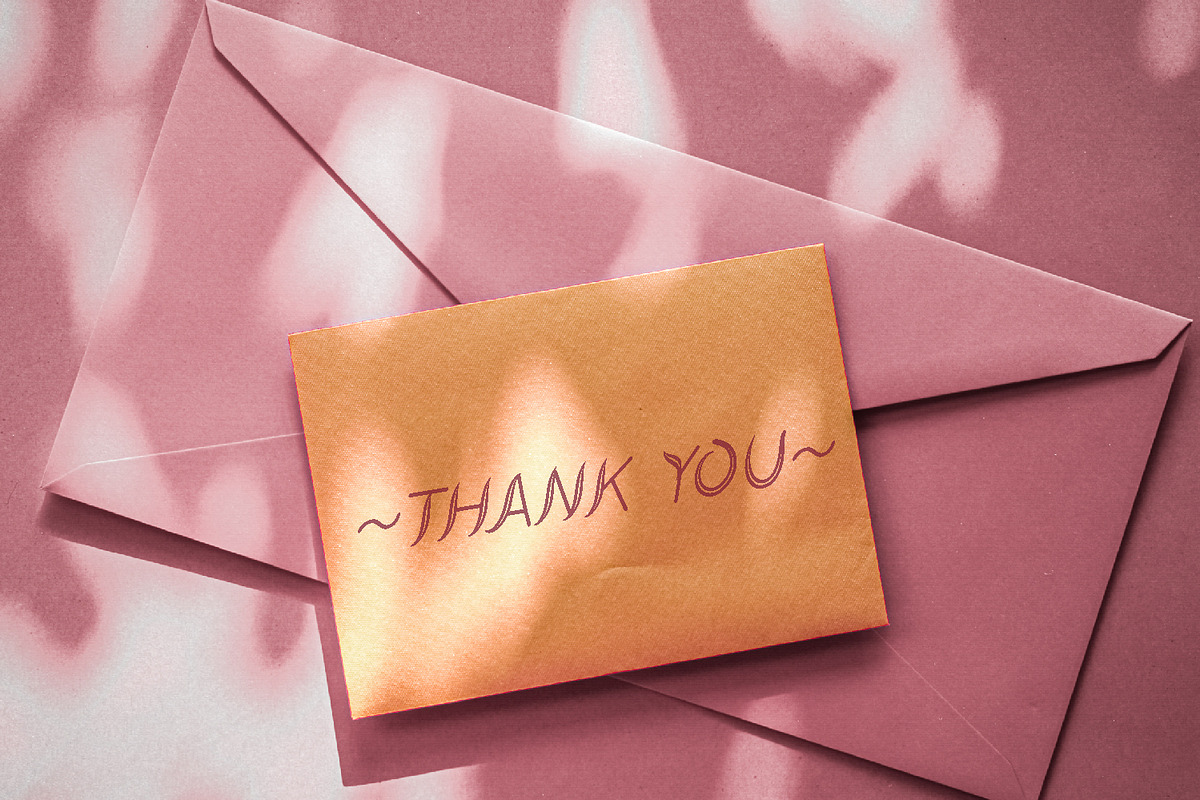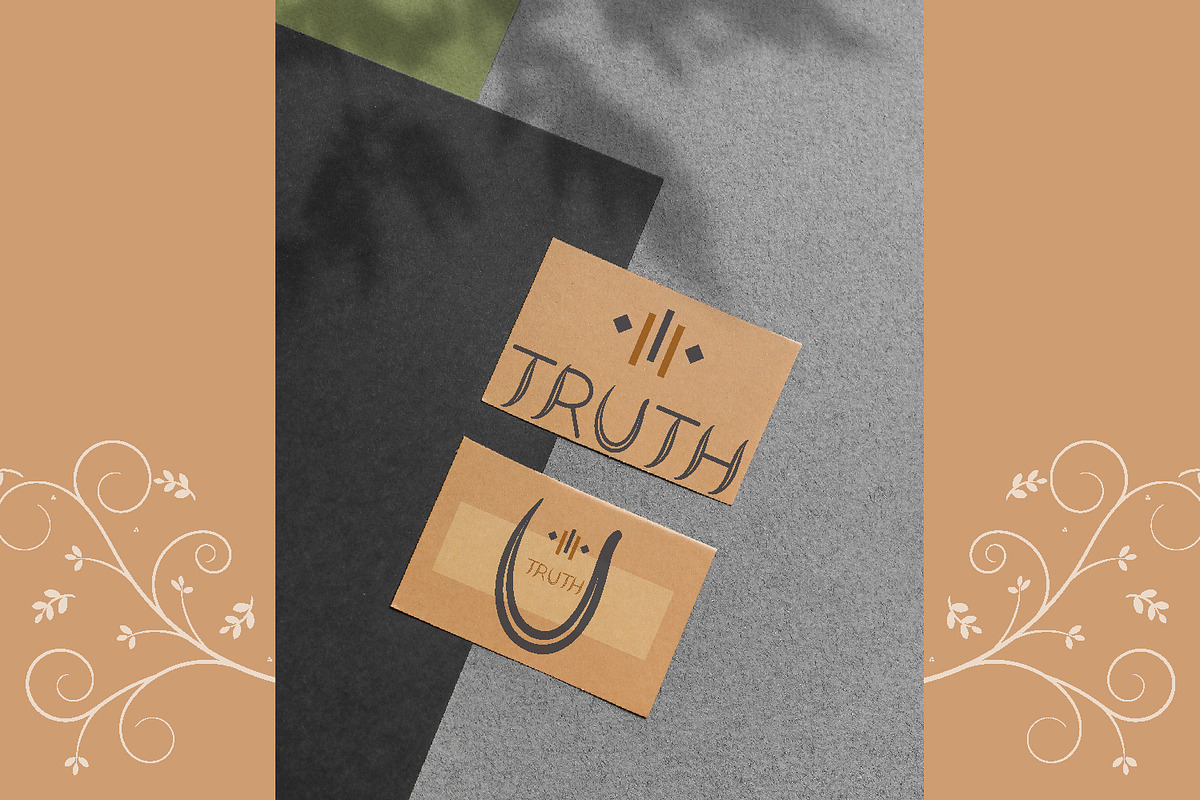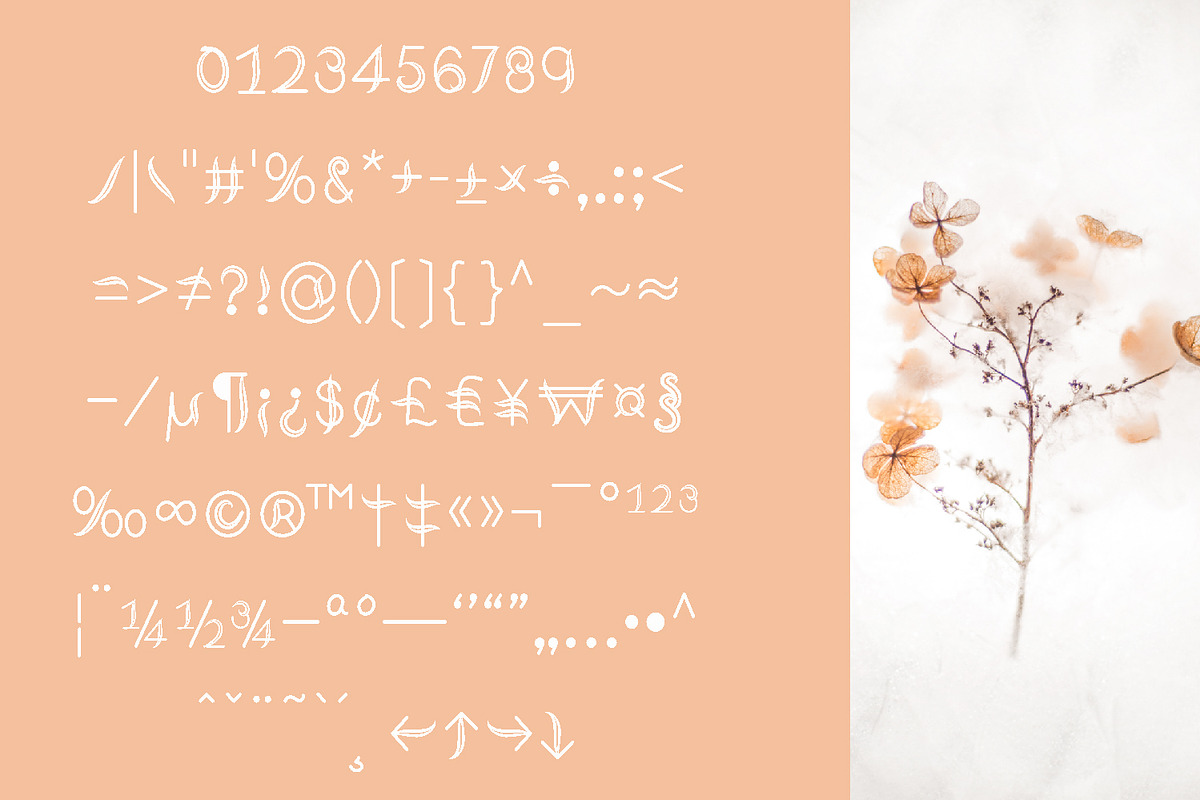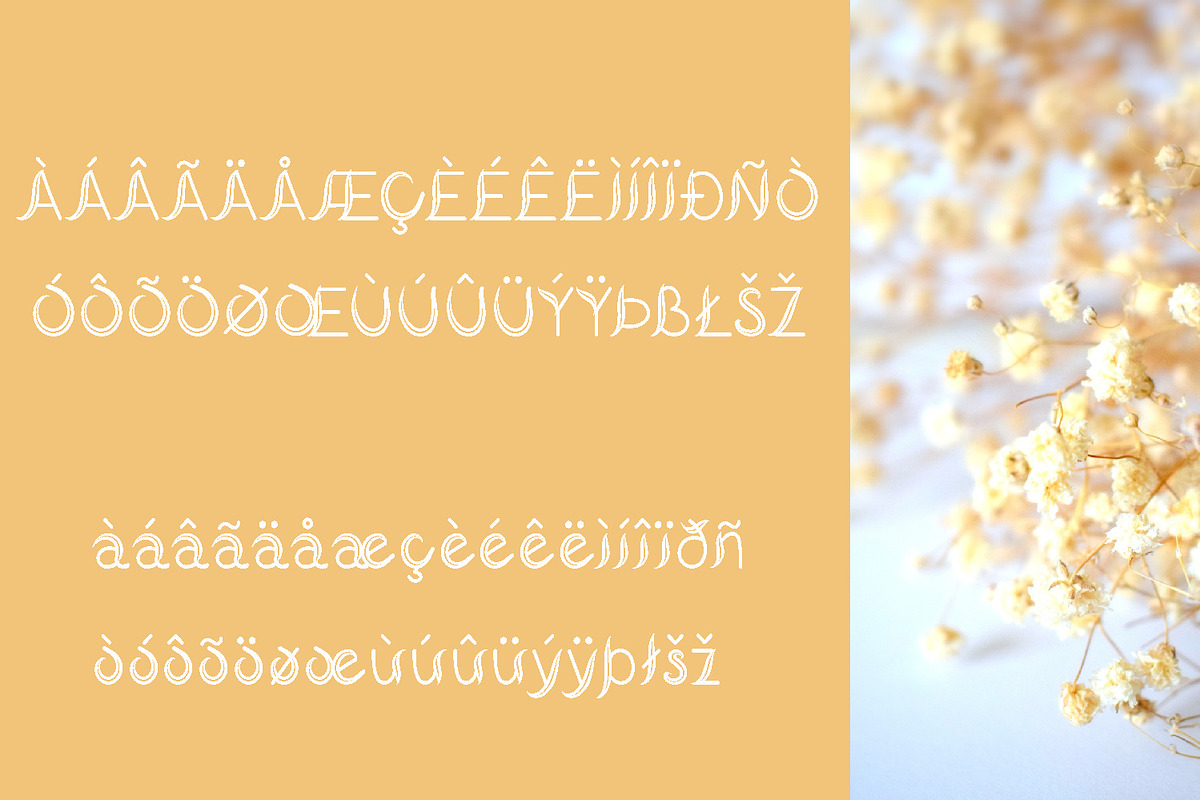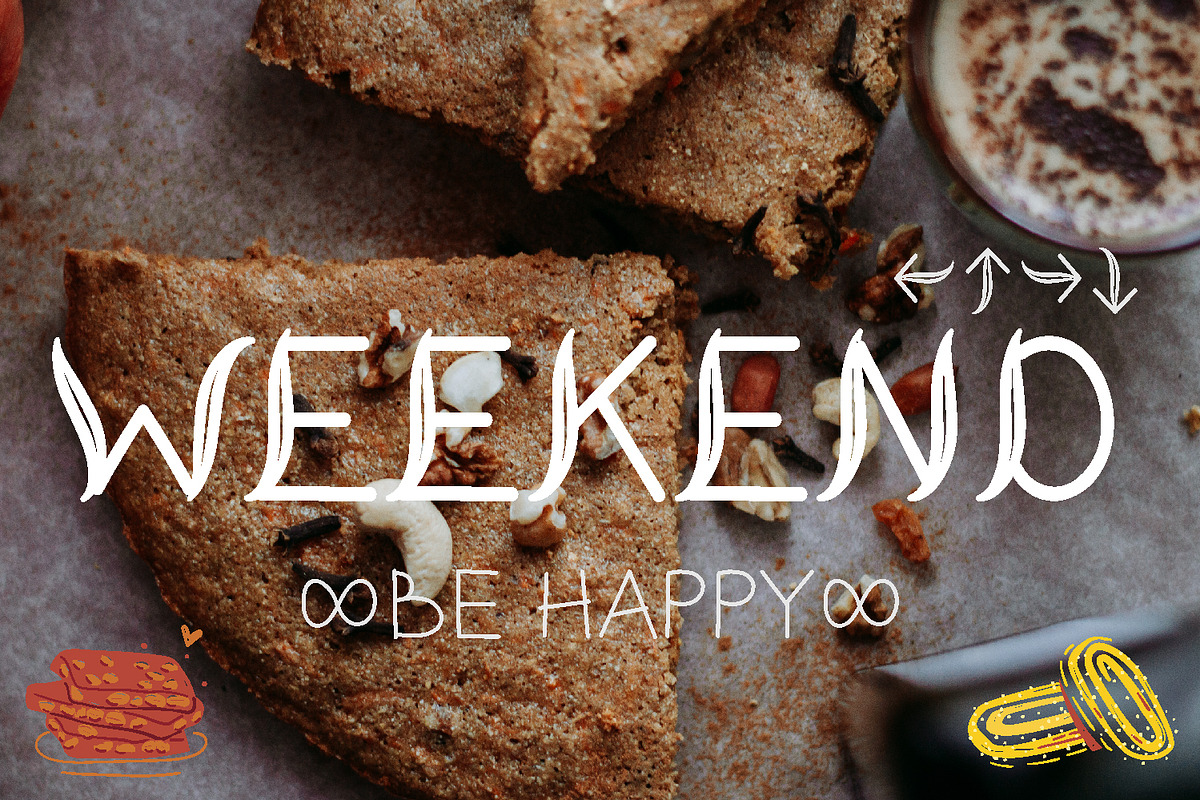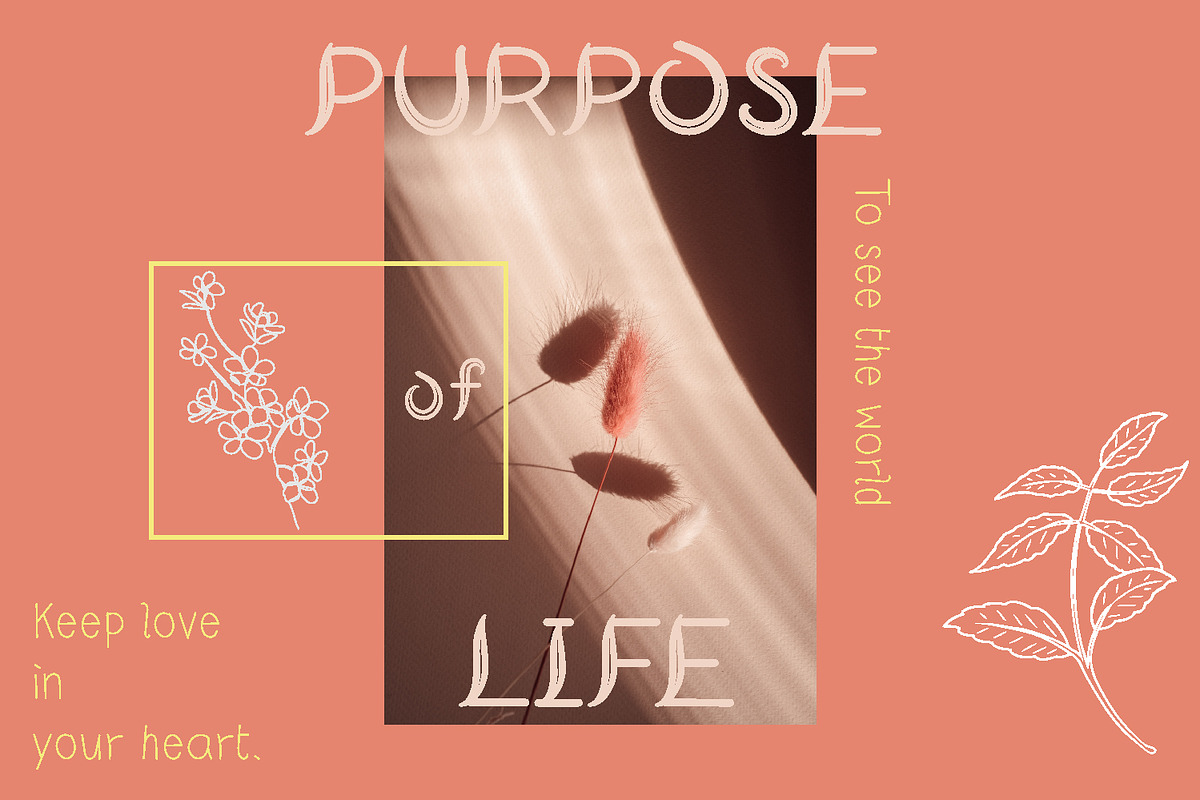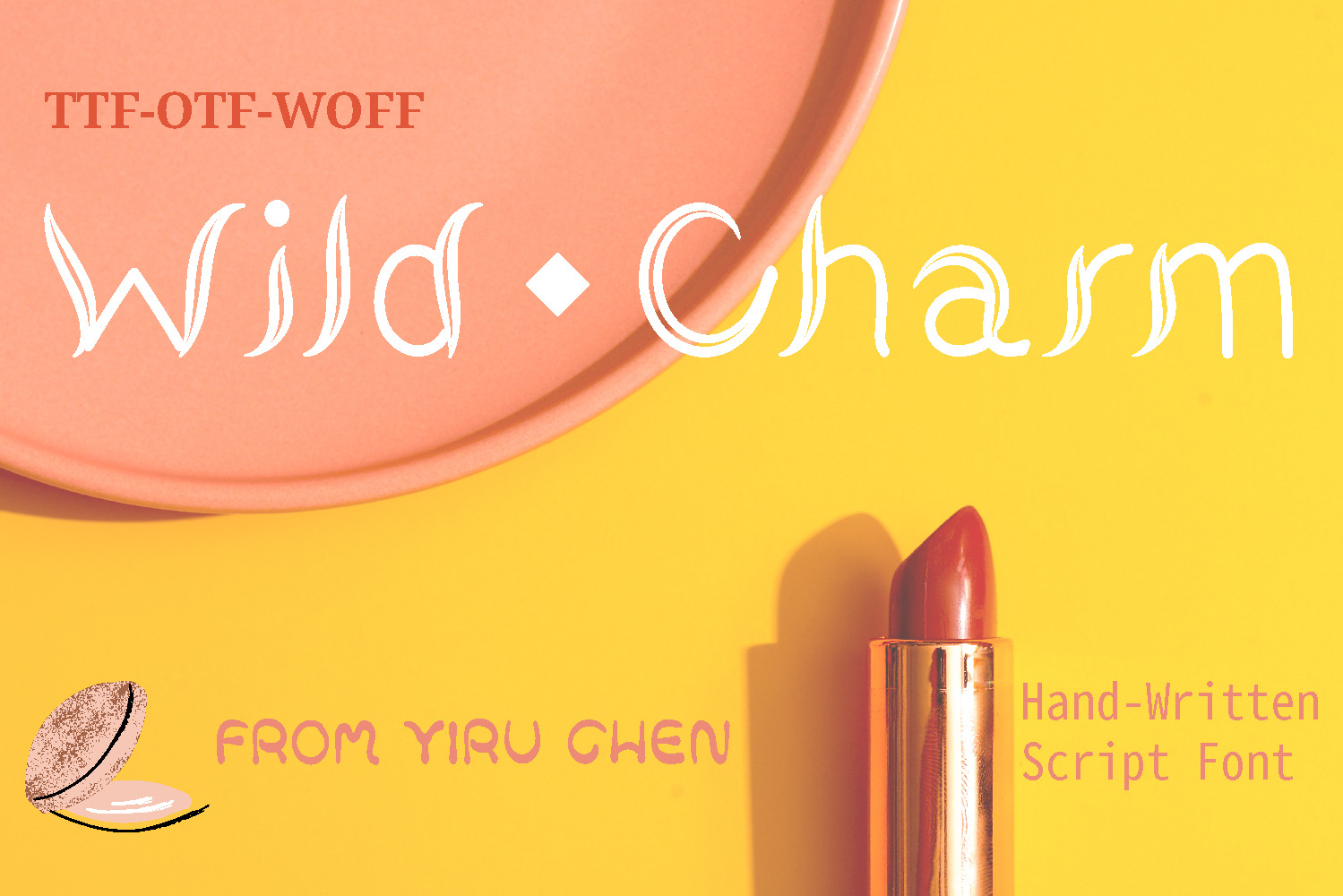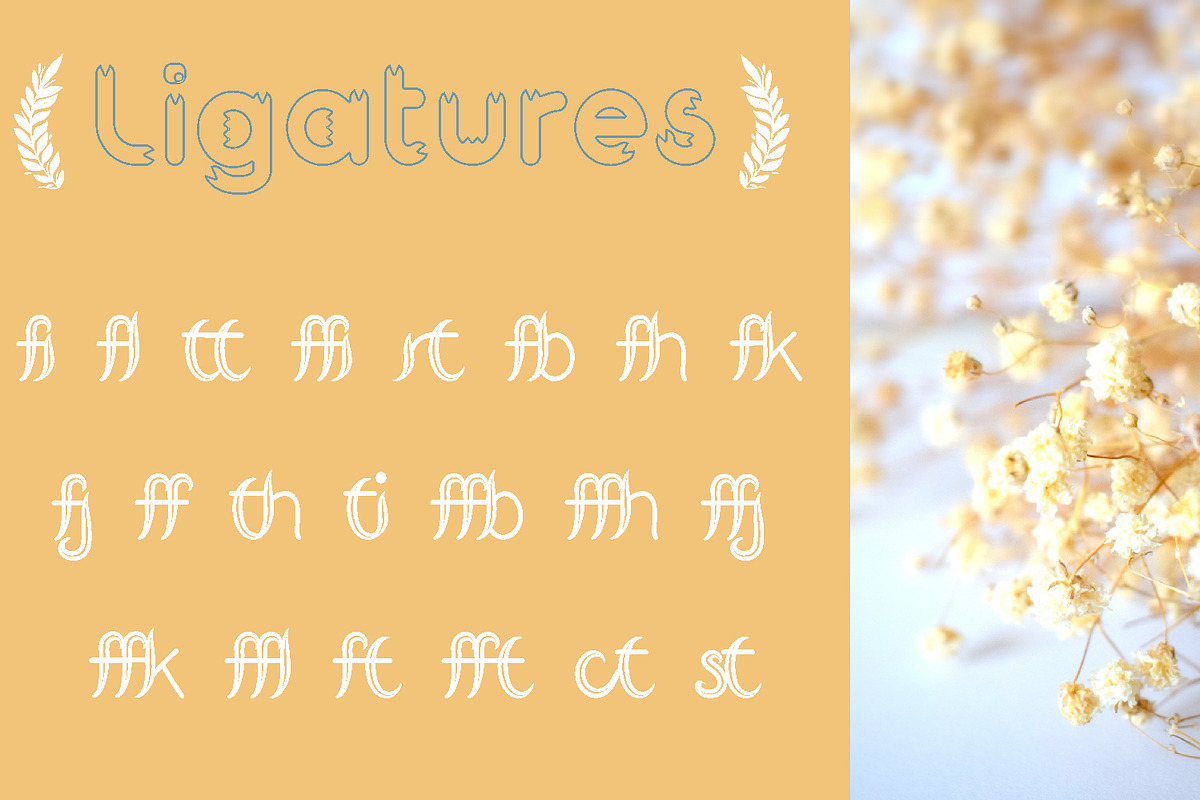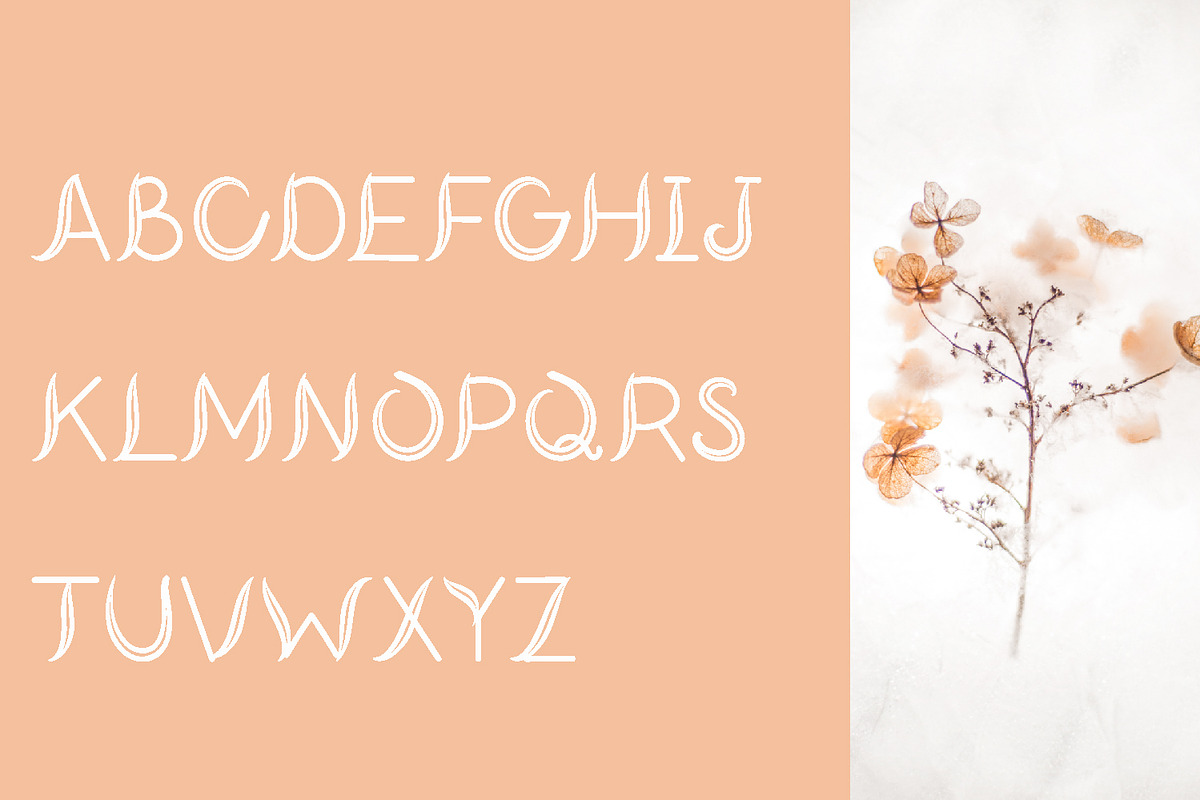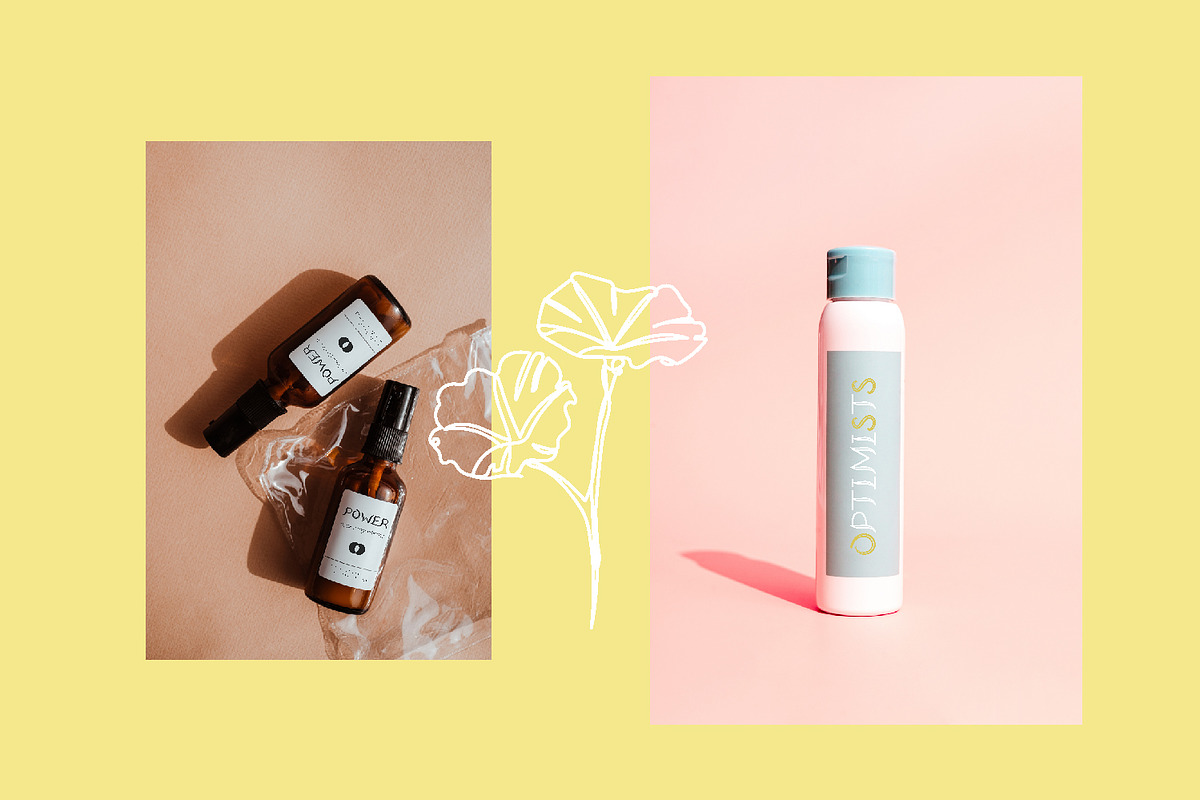
Wild Charm Handwritten Script Font
Wild Charm Handwritten Script Font has four fonts. Bold, BoldItalic, Regular, RegularItalic. A modern handwritten font, smooth lines, chic and comfortable. Very suitable for use in festivals and commemorative moments. This font is suitable for titles, posters, packaging, clothing, banners, book design, business card design, website design, instagram, pintestest, etc. Provide wonderful and interesting handmade designs.